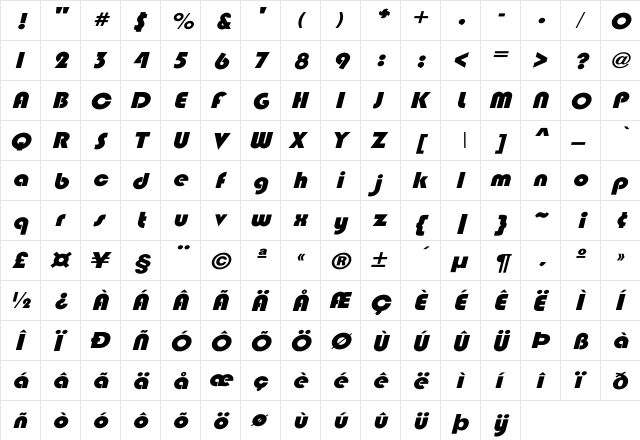
BlippoExtObl-Heavy Regular
Design Context for BlippoExtObl-Heavy Typeface
BlippoExtObl-Heavy offers clean, dependable letterforms without strong stylistic allegiance, making it a practical choice for designers who need flexibility.